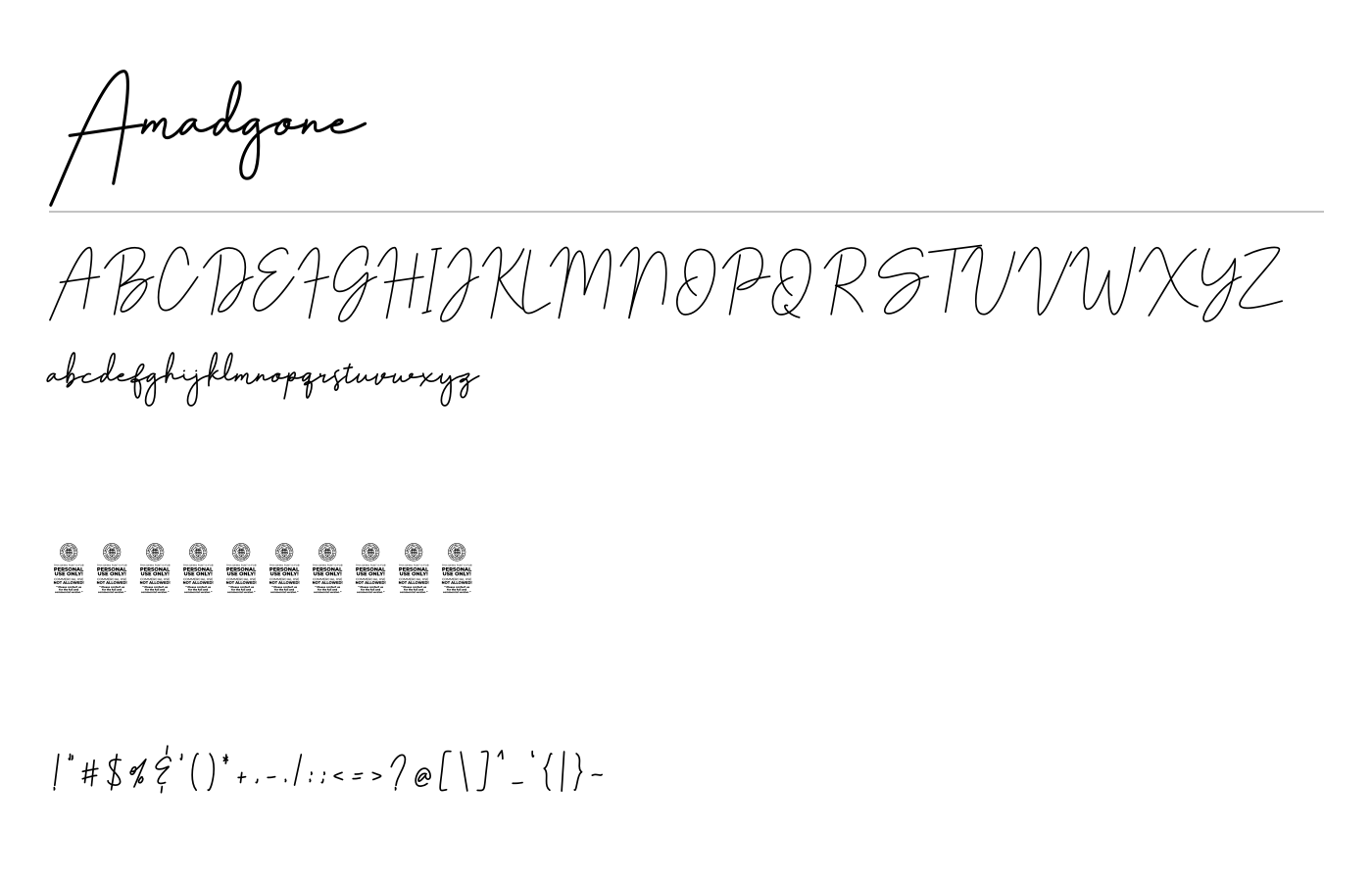
Amadgone is a delicate, handwritten script font with a light and airy feel created by its thin, flowing strokes and elegant, connected letterforms. It exudes a modern, personal charm perfect for creative branding, invitations, and stylish headlines where a casual yet refined touch is desired. This font works beautifully in projects that need an intimate, sophisticated, and approachable look.
Amadgone Font